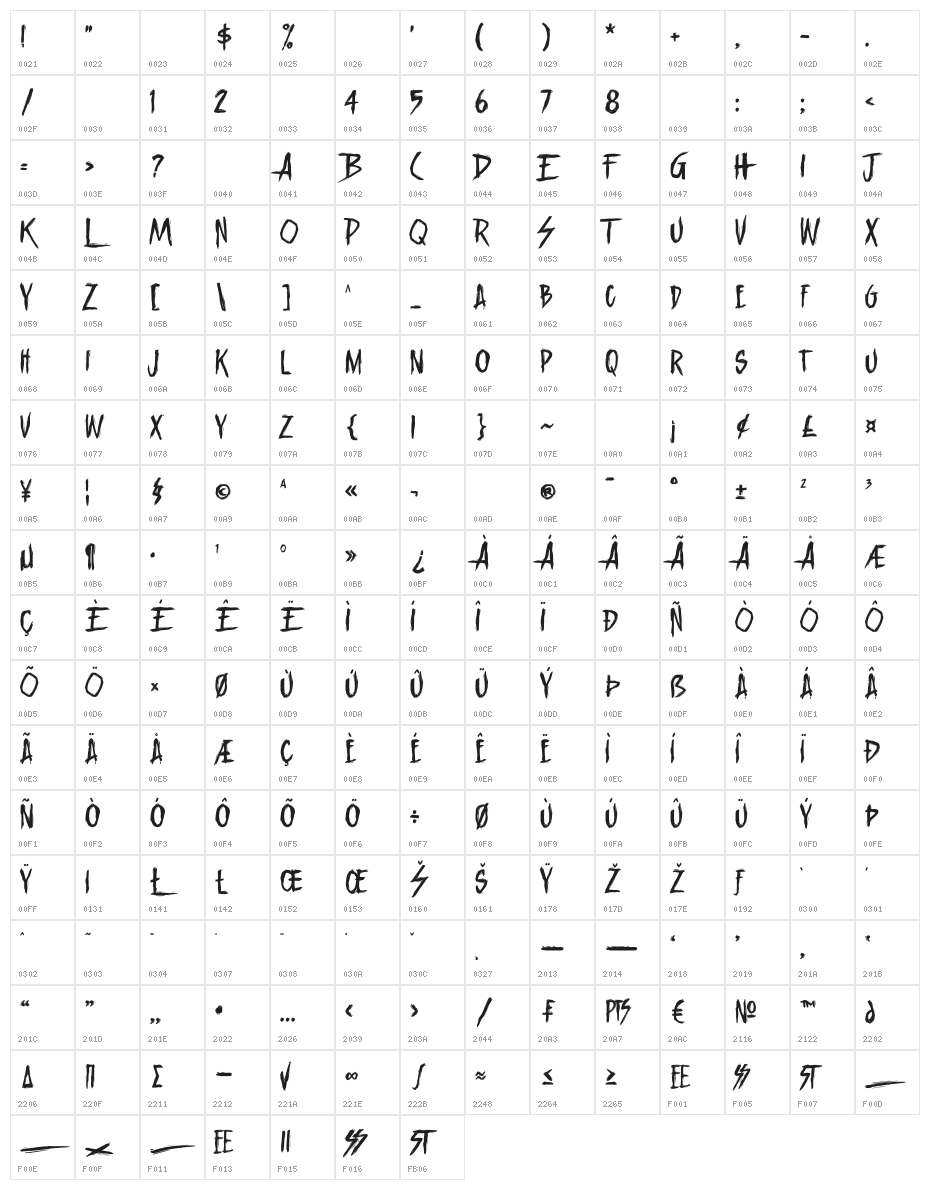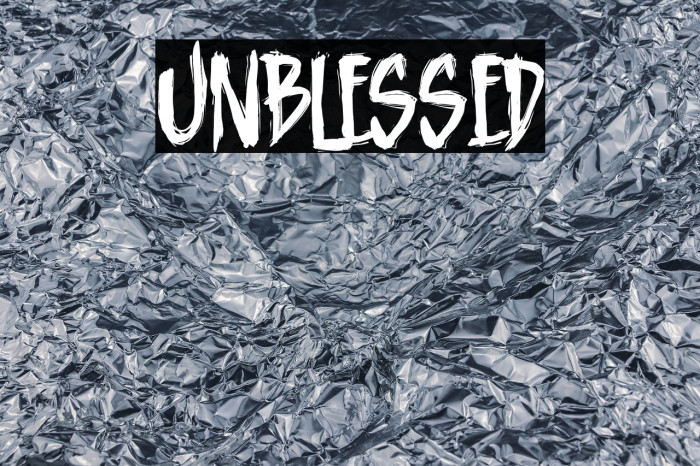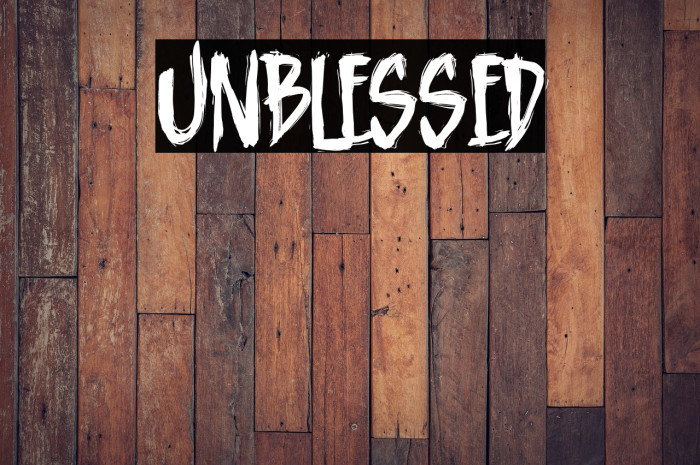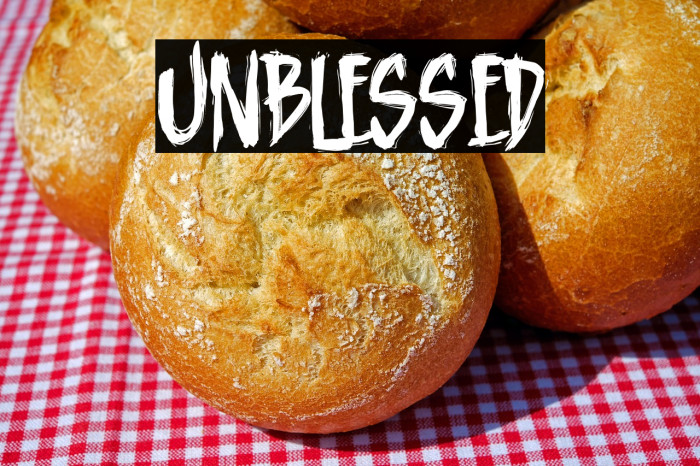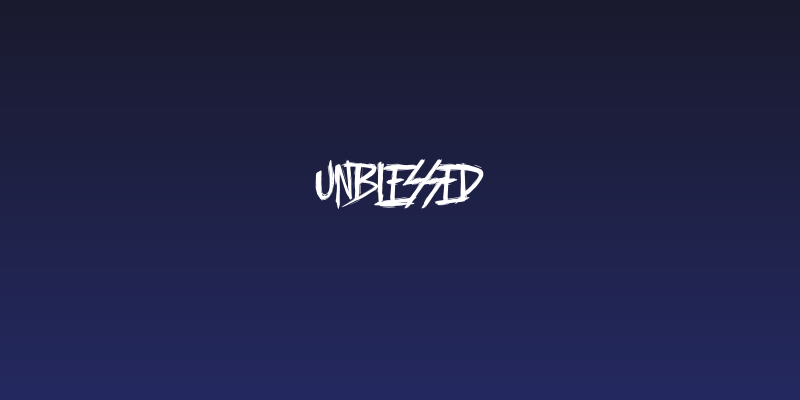
Unblessed Font
Unblessed Description
This font features a bold, expressive style with a hand-drawn appearance. The strokes are uneven and jagged, giving it a raw, energetic feel. The uppercase and lowercase letters are consistent in their rugged texture, while the numbers and special characters maintain the same dynamic quality. The overall design is reminiscent of graffiti or street art, making it ideal for projects that require a bold, unconventional look. The font's unique character is emphasized by its irregular edges and varying stroke thickness, which add to its distinctive, rebellious aesthetic.
| Overall Style | Modern, Edgy |
| Proposed Projects | Ideal for album covers, posters, streetwear branding, and edgy graphic designs. |